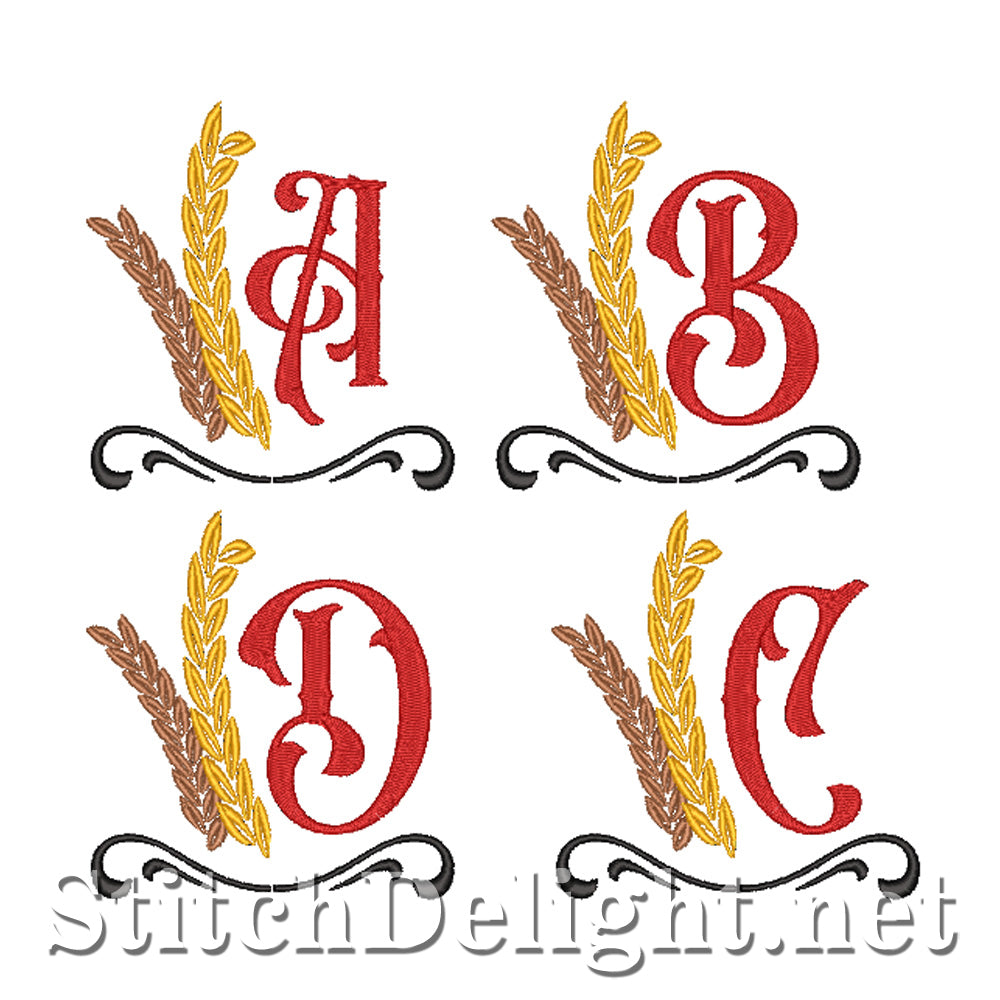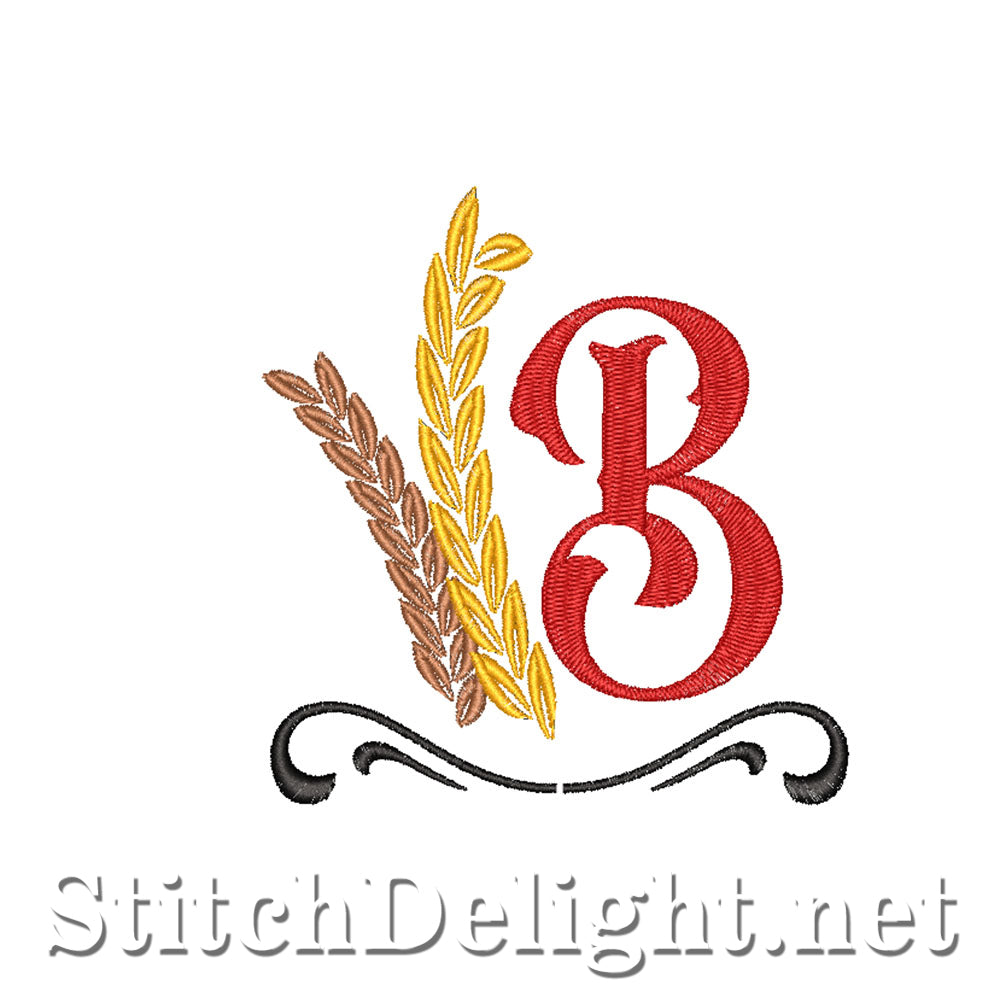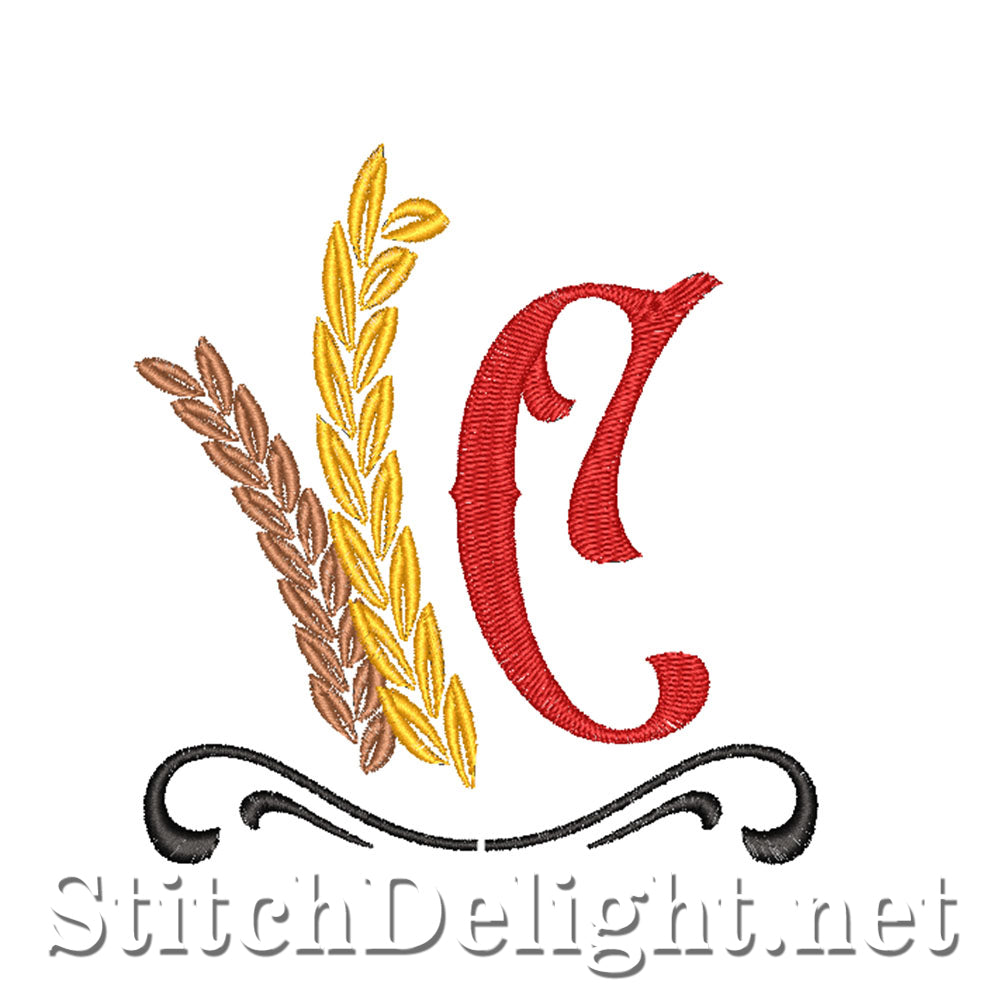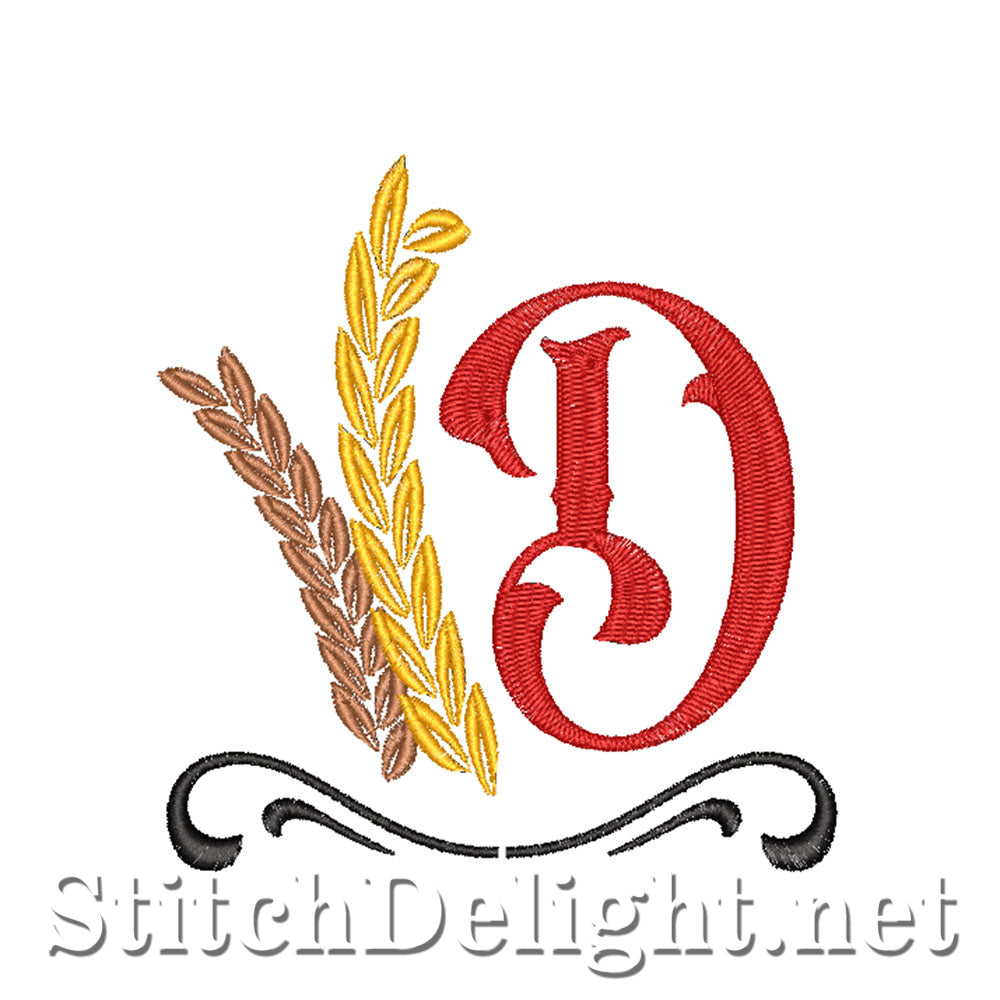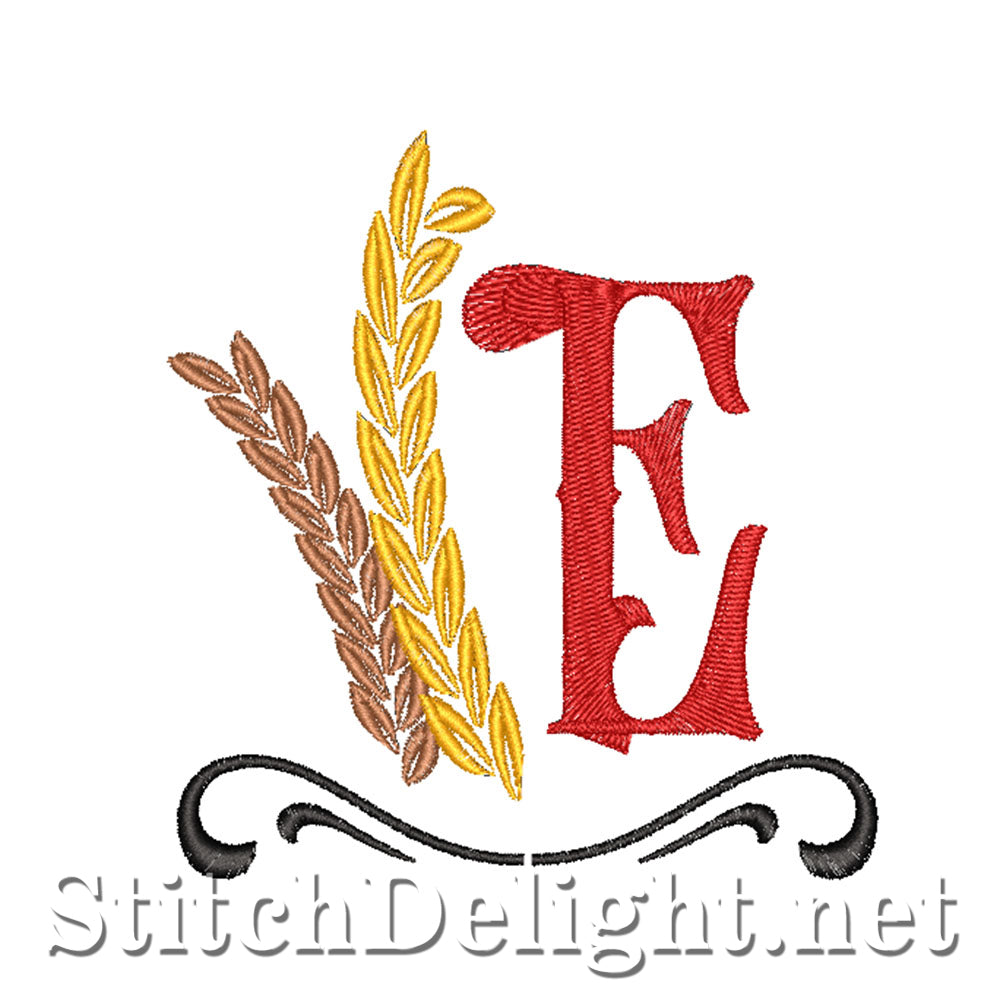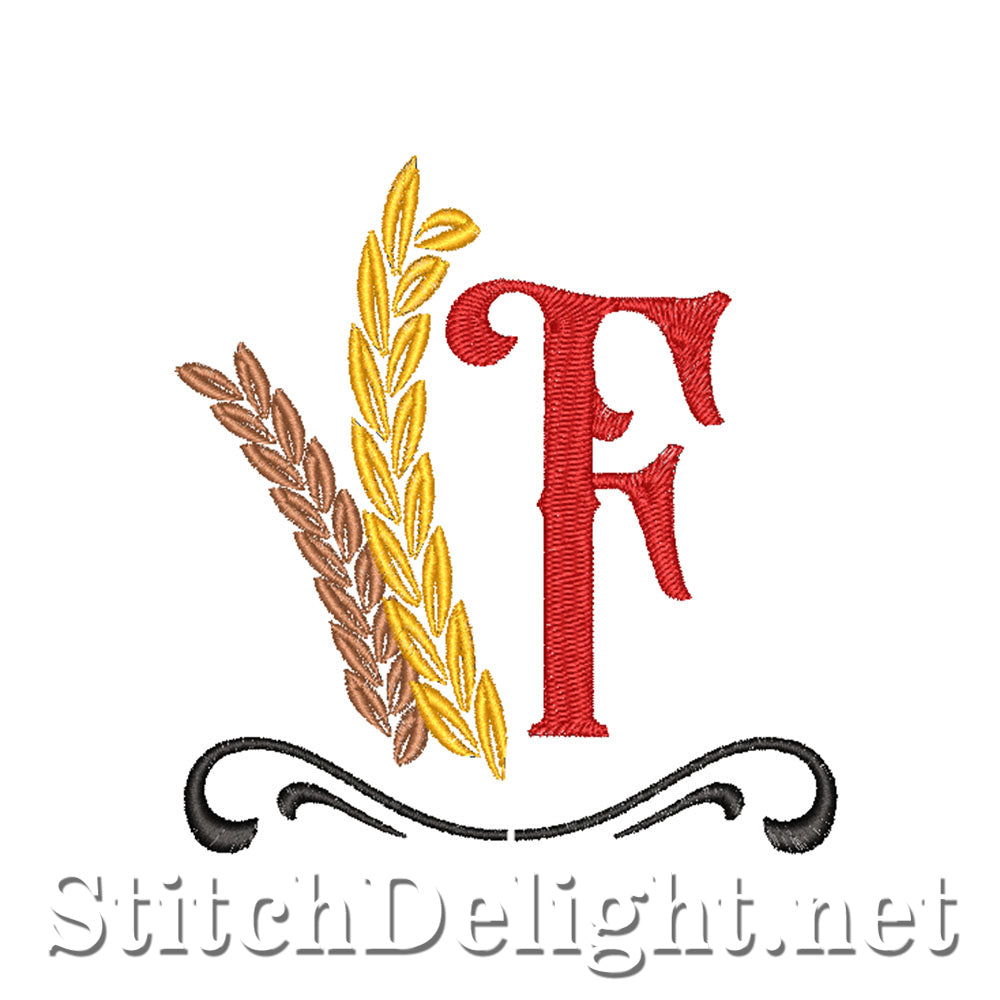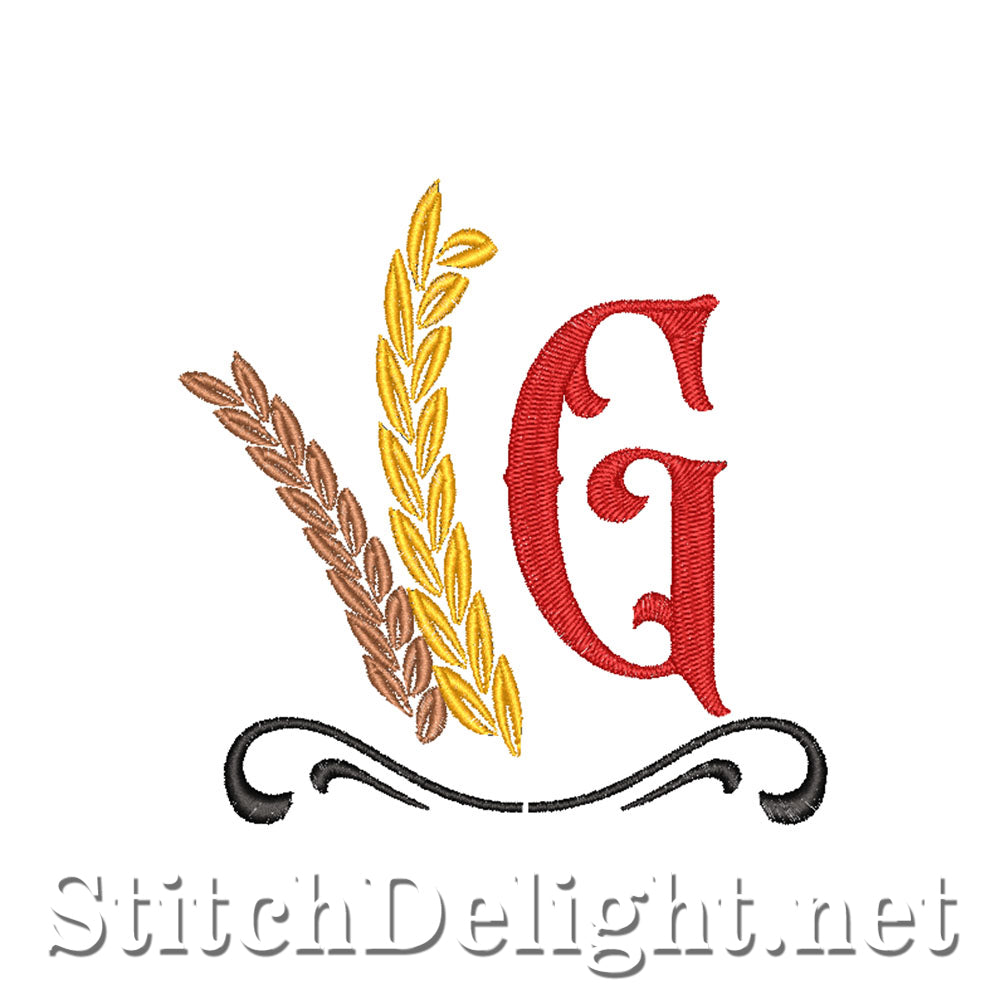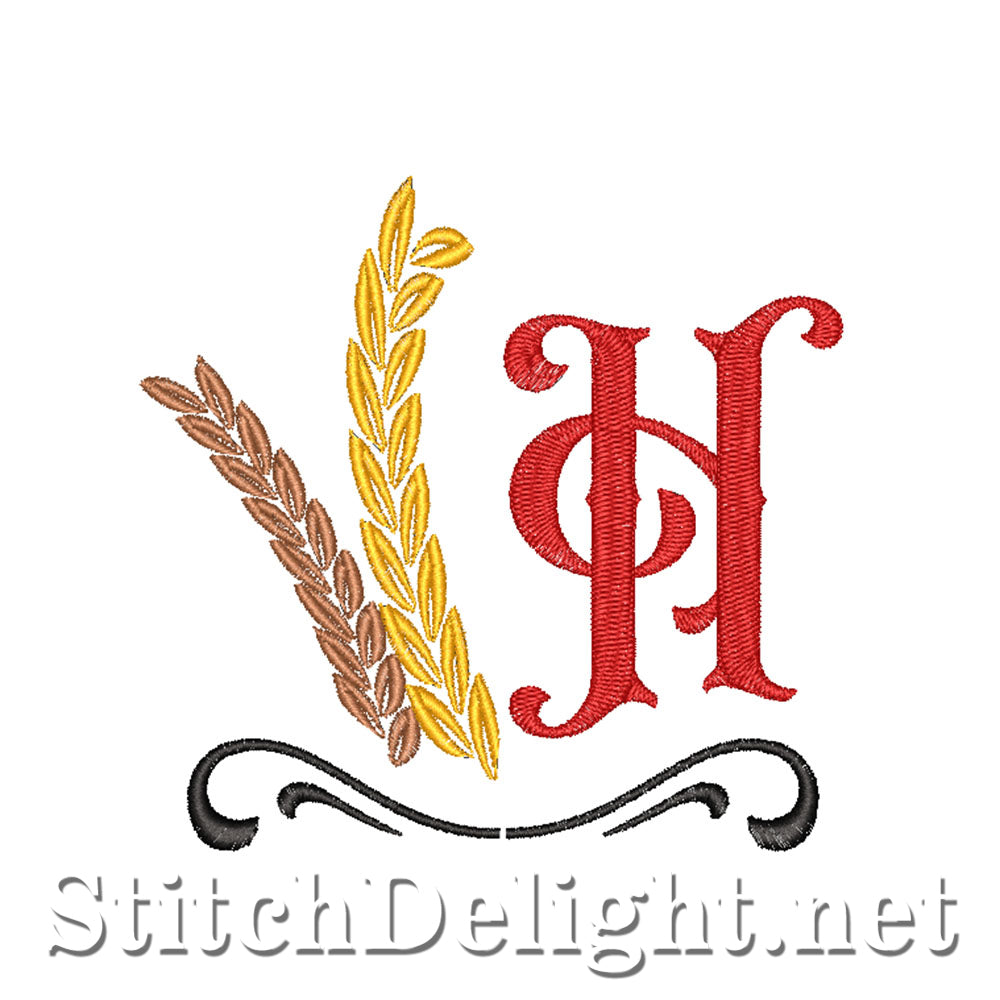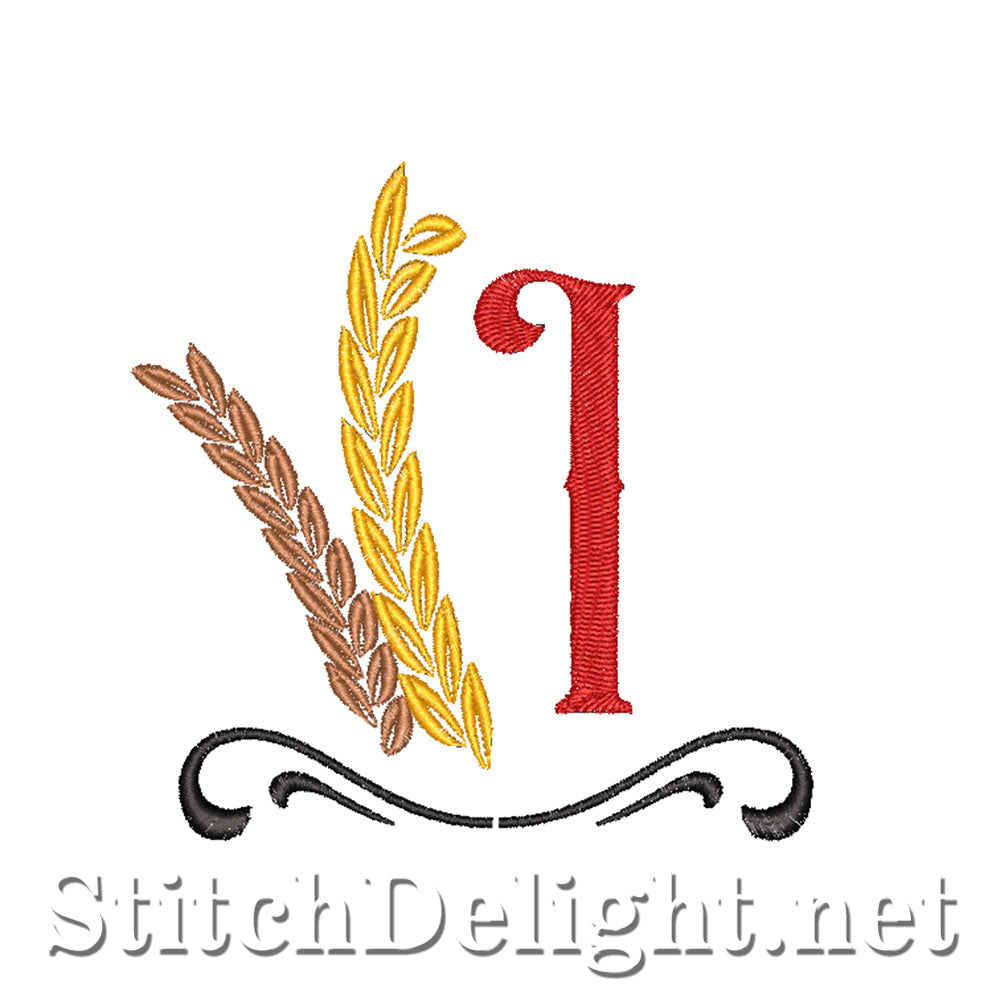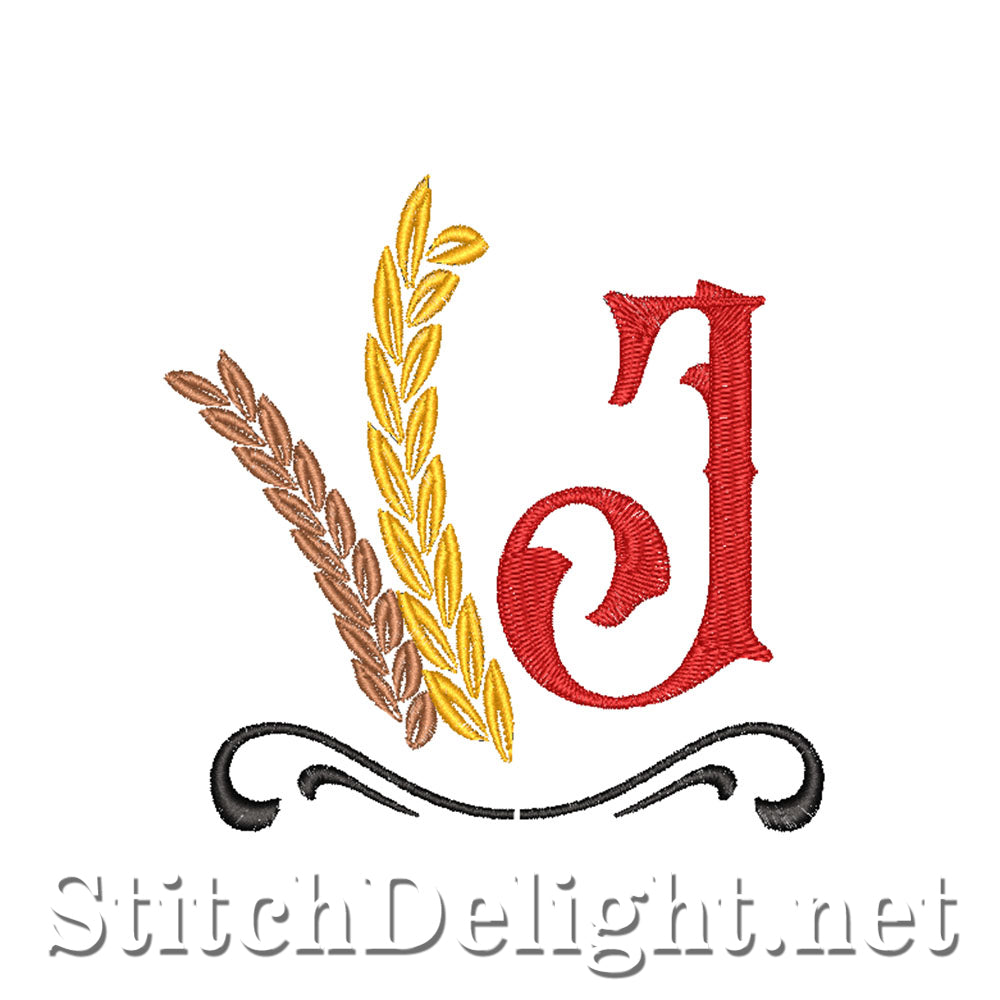
This is the font used on the Whisper Quote, this font includes a BX format and comes in at 97.5mm / 3.84 inch in height, this elegant font stitches out beautifully and is perfect for a farm house, I made a pillow case with a quote on using the go-custom pillows, if you like the quote you can find it on the website under SDS3263 Whisper Quote